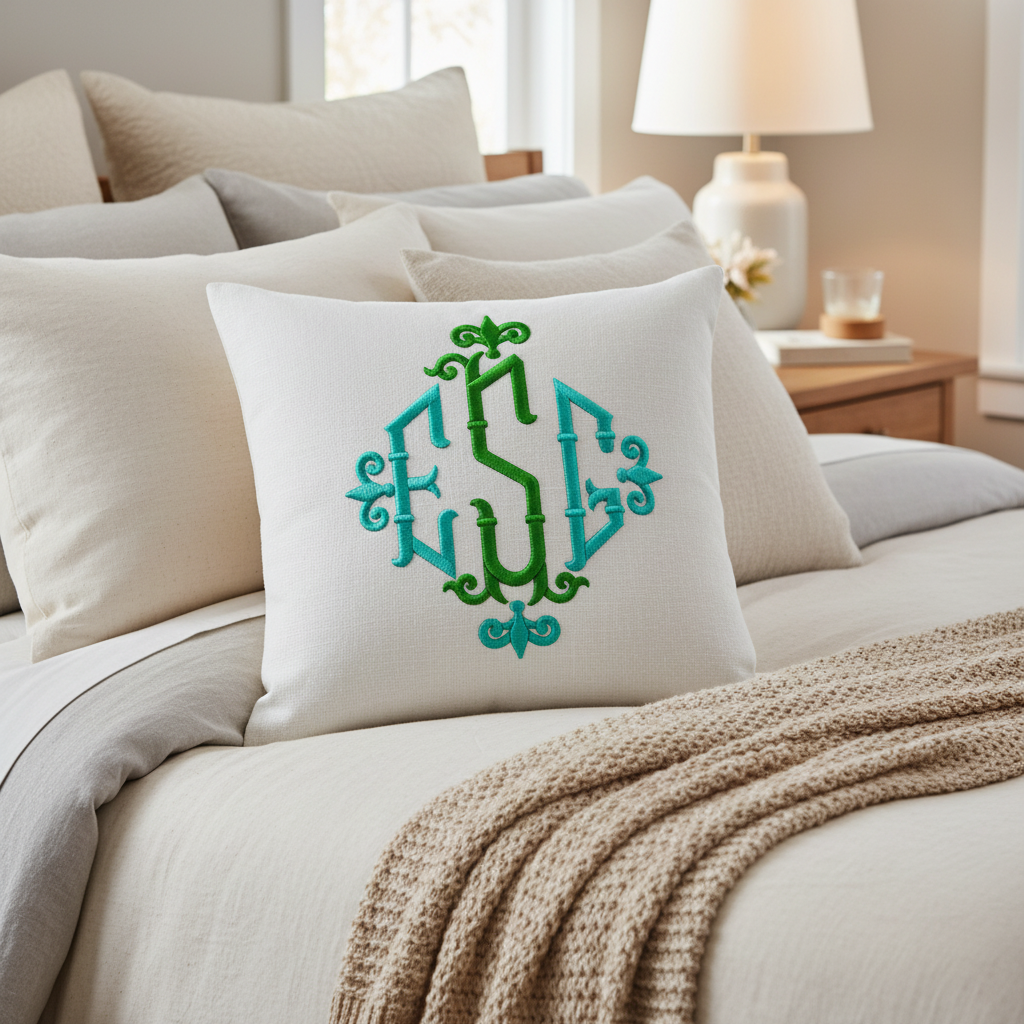
Monogram Embroidery Fonts: The Complete Guide to Choosing & Using Them
What Is a Monogram Embroidery Font?
A monogram embroidery font is a special type of embroidery alphabet designed to combine 2 or 3 letters into a single, elegant design. Unlike regular embroidery fonts, monogram fonts are built with specific letter positions — typically a large center letter flanked by smaller left and right letters — making them perfect for personalized gifts, wedding items, towels, bags, and apparel.
If you've ever seen a beautifully embroidered towel with someone's initials, that's a monogram font at work.
Types of Monogram Embroidery Fonts
Not all monogram fonts are the same. Here are the most popular styles:
- Traditional 3-Letter Monogram — The classic format with first initial, last initial (large, center), and middle initial. Most commonly used for wedding gifts and home linens.
- Circle Monogram — Letters arranged inside a circular frame. Great for a modern, clean look on tote bags and shirts.
- Vine Monogram — Elegant, flowing letters with decorative vine-like details. A timeless choice for gifts and home décor.
- Interlocking Monogram — Letters that overlap and intertwine for a sophisticated, upscale look. Popular for wedding and anniversary gifts.
- Scalloped Monogram — Letters framed inside a decorative scalloped border. Adds a charming, feminine touch to any project.
How to Choose the Right Monogram Embroidery Font
Choosing the right monogram font depends on your project and your machine. Here are a few tips:
- Consider the fabric: Delicate fabrics like linen work best with lighter, script-style monograms. Thicker fabrics like canvas or denim can handle bold block letter monograms.
- Match the occasion: Vine and interlocking styles feel more formal and suit weddings or anniversaries. Circle and block styles are more casual and versatile.
- Check the size: Most monogram fonts come in 3 sizes. Make sure the size fits your hoop and the item you're embroidering.
Best Monogram Embroidery Fonts for Personalized Gifts
Vine Monogram Font
Scalloped Heart Monogram Font
Perfect for baby gifts, bridal showers, and feminine personalized items.
Interlocking Monogram Font
A sophisticated, overlapping script style ideal for upscale gifts and wedding keepsakes.
Circle Monogram Font
Clean, modern block letters in a circular frame. Great for tote bags, shirts, and caps.
Tips for Using Monogram Embroidery Fonts